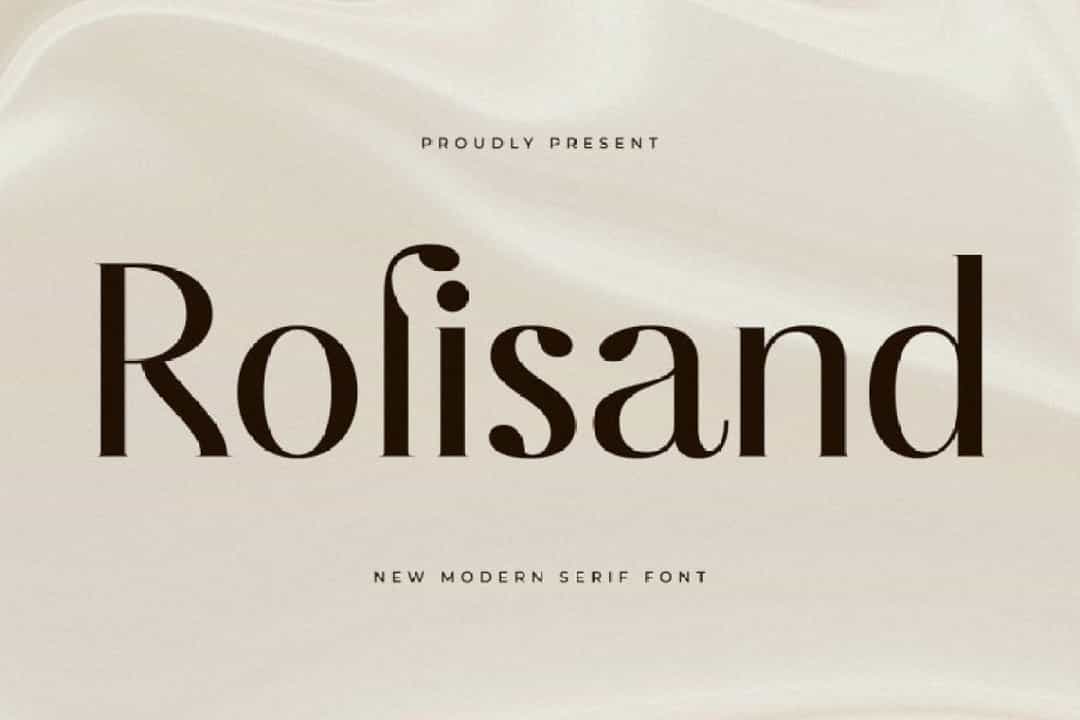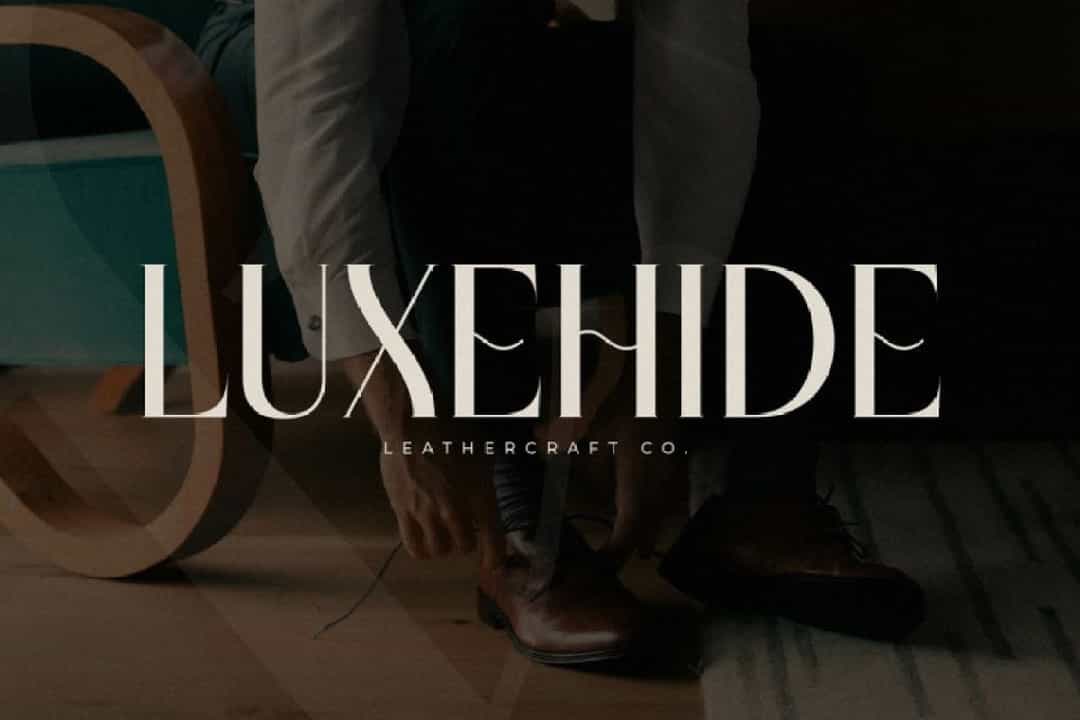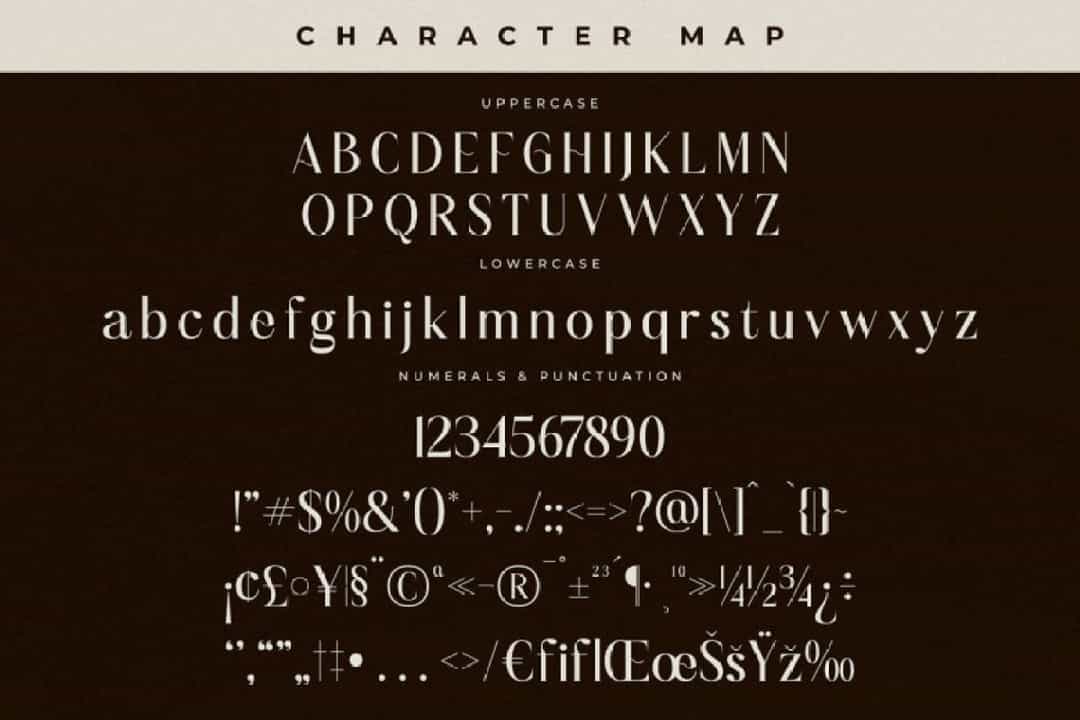
Storytype’s Rolisand Font is a contemporary serif and classic font with its own distinct style and modern appearance, perfect for creating luxurious logos, book/film titles, clothing brands’ clothing labels/magazine covers, lettering quotes and much more.